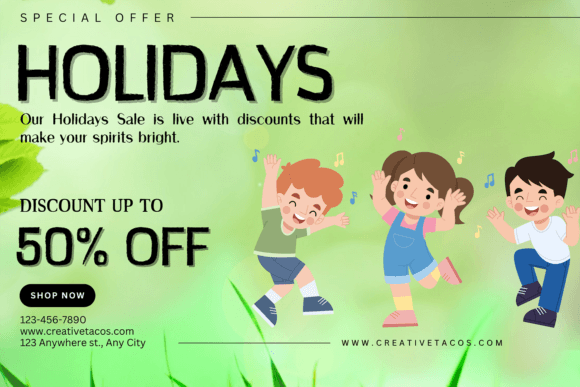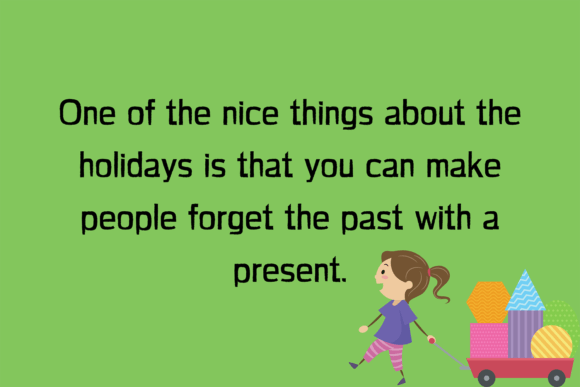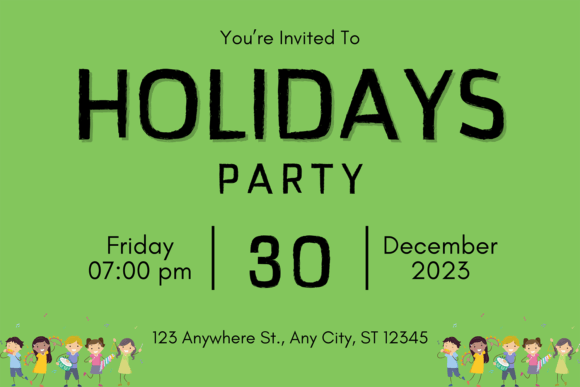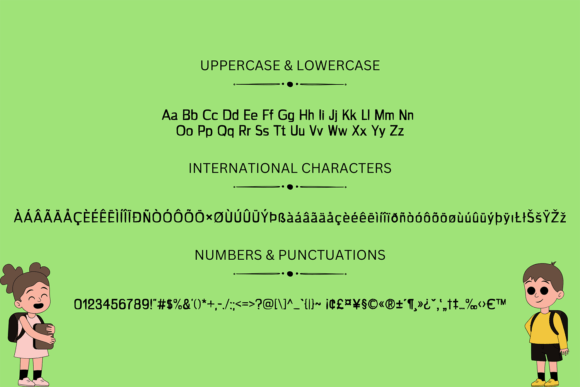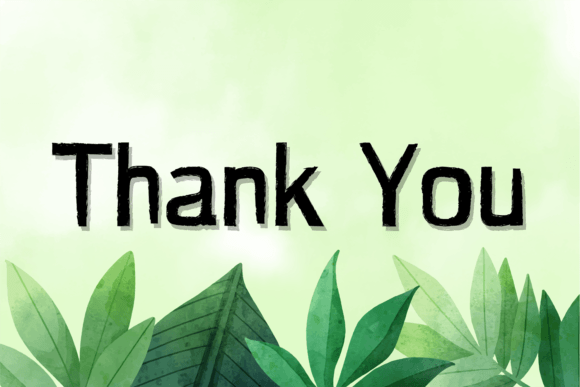
Get Ready to Brighten Up Your Holiday Projects
Do you remember the moment when you first started brainstorming ideas for your holiday project? The spark of creativity ignited, and you knew exactly what you wanted to create – something magical, something that captures the essence of joy and celebration. That’s exactly what Fawaz Holidays Font is designed to do – bring a touch of whimsy and cheer to your holiday projects.
This delightful font is perfect for designers who want to add a playful twist to their holiday designs. With its Latin extended character support, Fawaz Font offers a wide range of possibilities for creating festive invitations, greeting cards, and more. Whether you’re designing a logo, a poster, or a magazine layout, Fawaz Font is sure to add a dash of holiday magic to your work.
Fawaz Font Key Features
- Font Family: Fawaz Font is a typeface designed for Arabic and Latin scripts, making it a versatile font for various applications.
- Character Set: The font includes a wide range of characters, including Arabic, Latin, and special characters, making it suitable for various languages and applications.
- Unique Characteristics: Fawaz Font features a unique blend of traditional and modern design elements, making it a distinctive and eye-catching choice for designers and typographers.
Fawaz Font Review
Overall, I’m quite impressed with the Fawaz Font, but it’s not without its quirks.
- Unique Design: Fawaz Font has a distinctive, modern aesthetic that sets it apart from more generic fonts.
- Legibility: The font is easy to read, even at smaller sizes, making it suitable for a wide range of applications.
- Font Pairing: Fawaz Font pairs well with other fonts, allowing designers to create visually appealing combinations.
- Limited Font Variations: The Fawaz Font family is relatively small, with only a few weights and styles available.
- Lack of Expressiveness: While the font is legible, it can feel somewhat sterile and lacking in emotional depth.
- Compatibility Issues: I encountered some compatibility issues when using the font in certain software applications.
The Fawaz Font is a solid choice for designers looking for a modern, legible font. While it has some limitations, its unique design and versatility make it a valuable addition to any design toolkit. With a bit more development, I’d be happy to see Fawaz Font become a go-to font for designers.